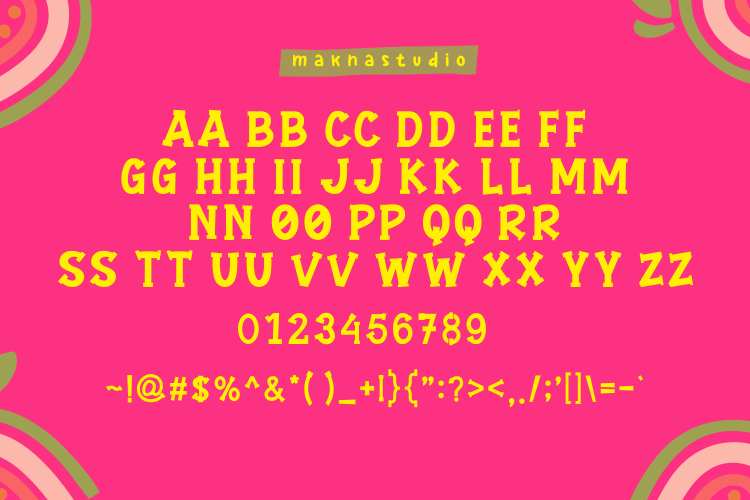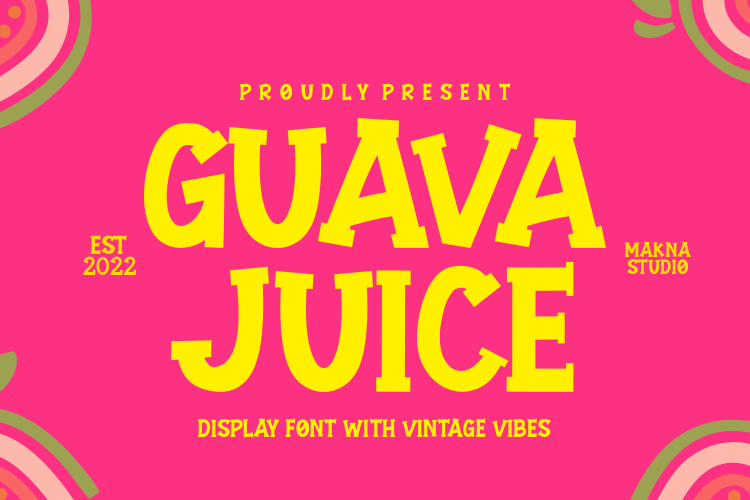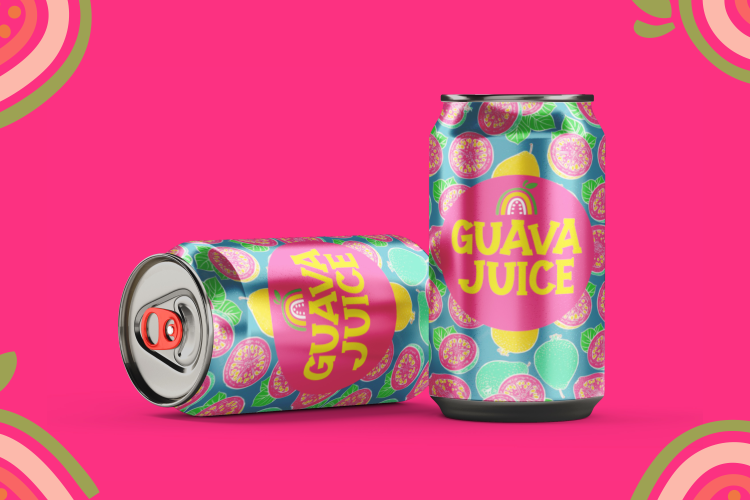
Guava Juice Display Font
This is a retro display font. suited for advertising, branding, logotypes, packaging, titles, headlines and editorial design special with vintage vibes